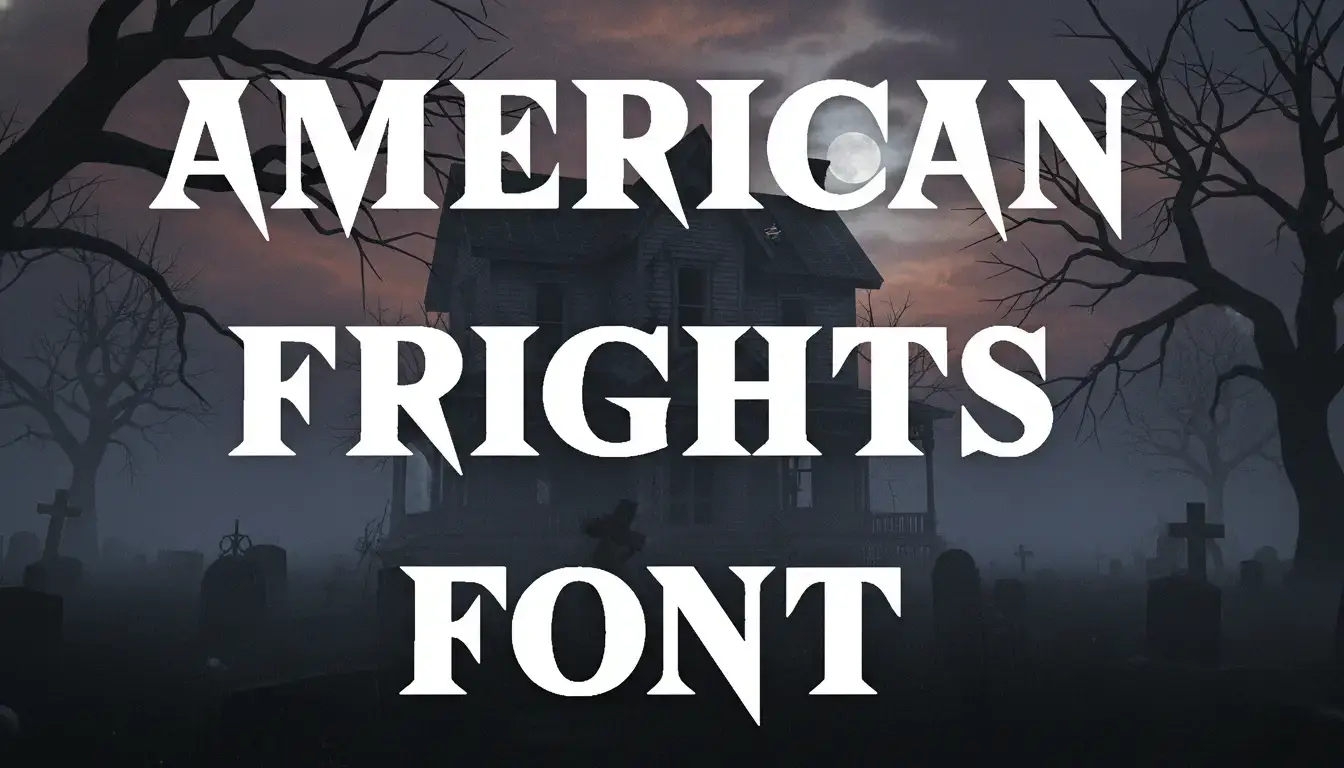
American Frights is an edgy, high-impact display typeface designed by The Branded Quotes. Released as a specialized project exploring horror and emotional themes, it takes traditional serif architecture and adds sharp, aggressive angles to create an eerie, outstanding visual presence.
American Frights
American Frights is a serif font (2020).